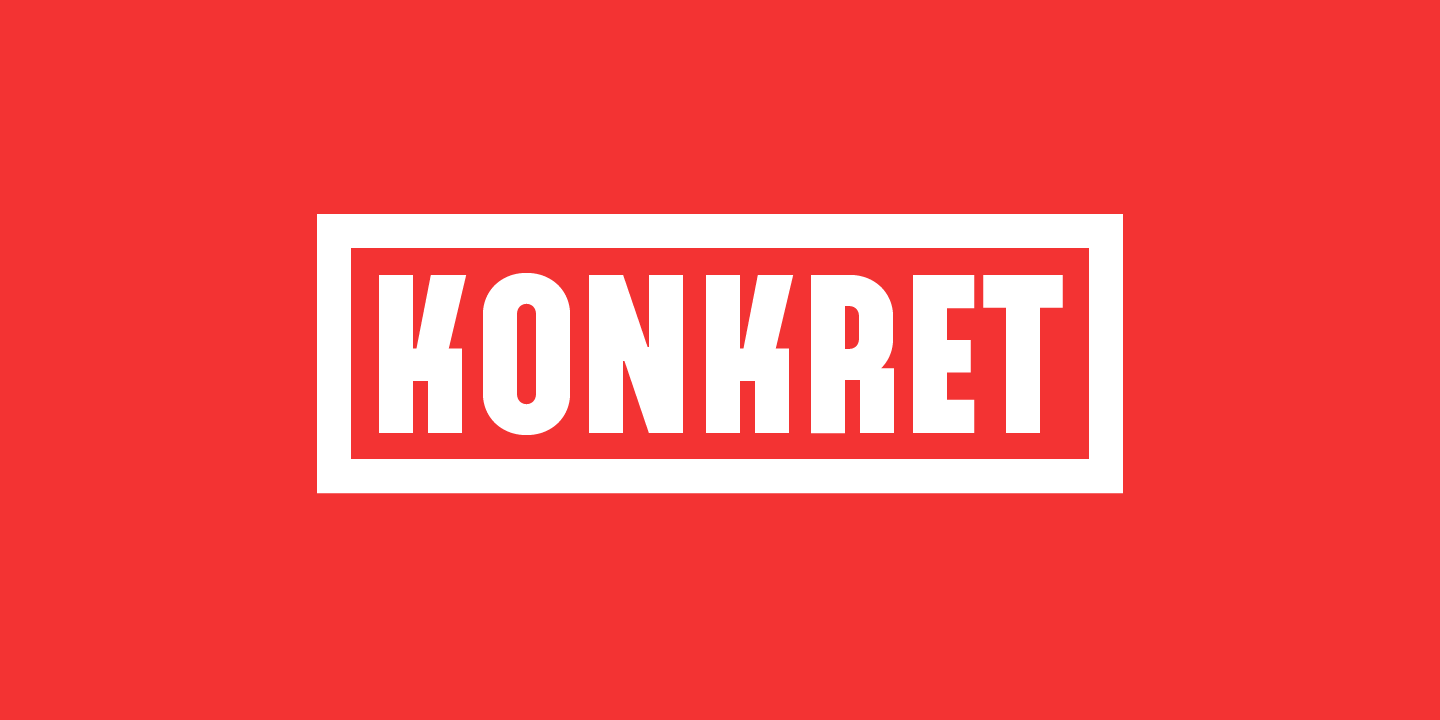
Konkret Font is perfect for industrial branding, architectural firm identities, construction company logos, engineering presentations, modern tech startups, urban design projects, concrete manufacturing marketing, contemporary art galleries, minimalist packaging design, and bold advertising campaigns. This robust typeface brings structural strength and modern sophistication to any design project requiring solid visual foundation.
What makes Konkret Font exciting is its powerful geometric construction that perfectly embodies the strength and reliability of concrete architecture. The font features bold, angular letterforms with clean edges and strong structural elements that create an impression of durability and modern engineering precision. Its industrial aesthetic includes consistent stroke weights and sharp corners that convey stability, innovation, and forward-thinking design philosophy. The typeface's commanding presence makes it ideal for brands seeking to communicate strength, reliability, and cutting-edge expertise through their visual identity.
The Konkret Font family includes light, regular, medium, bold, and black weights, each maintaining the typeface's distinctive geometric character. This comprehensive industrial font collection offers extensive weight variations that provide designers with complete typographic flexibility for creating strong visual hierarchies. Each weight preserves the font's structural integrity while adapting to different design contexts and applications.
Whether you're developing industrial brand identities, designing architectural presentations, or creating bold marketing materials, Konkret Font Free Download delivers the structural strength and modern aesthetics that contemporary businesses demand. Its industrial character and professional quality make it essential for brands seeking to establish solid foundations in competitive markets.